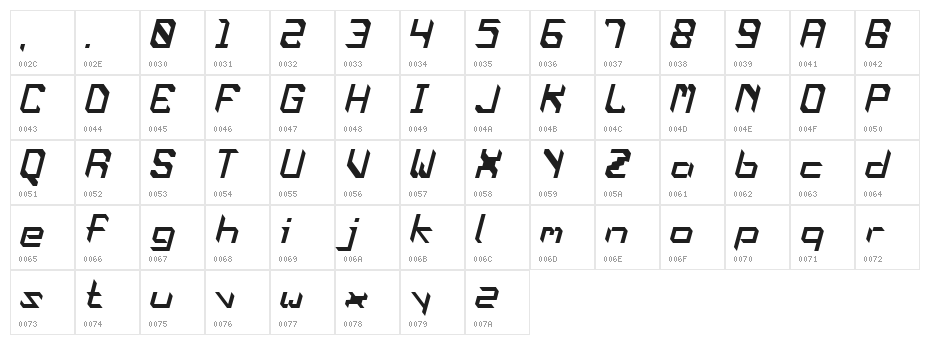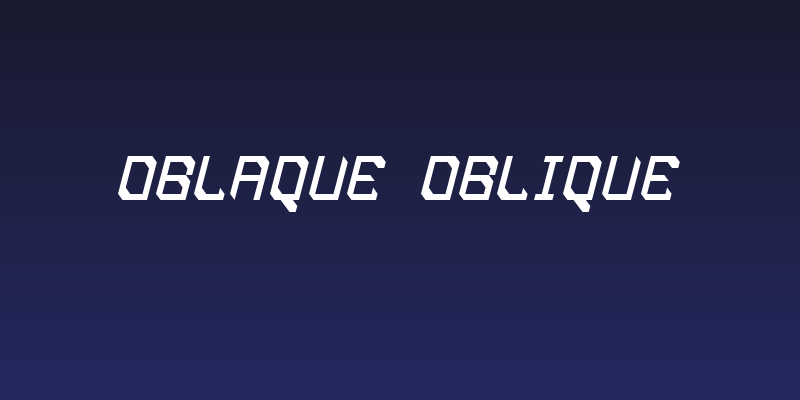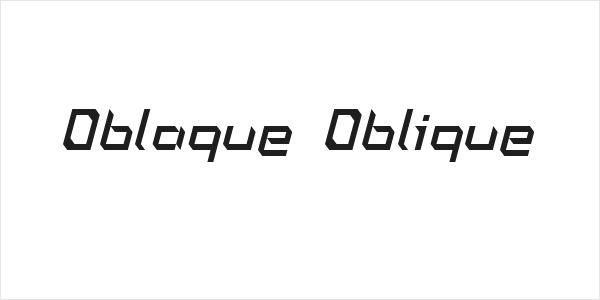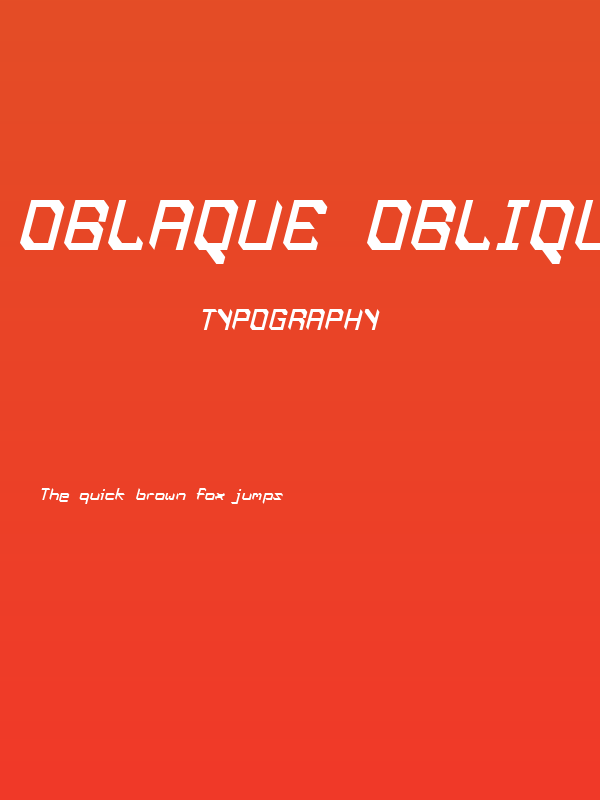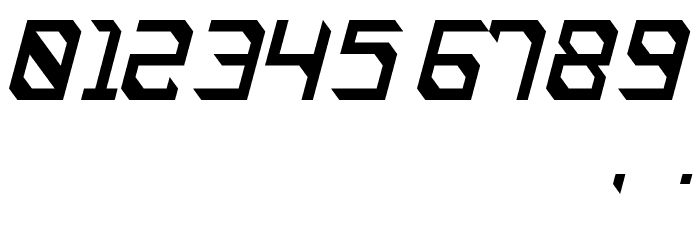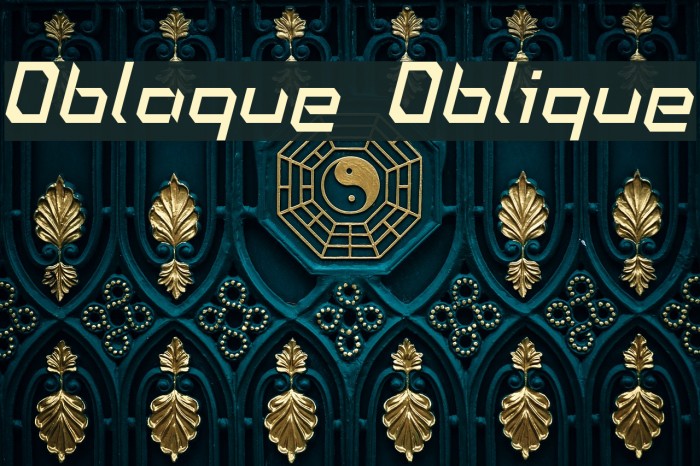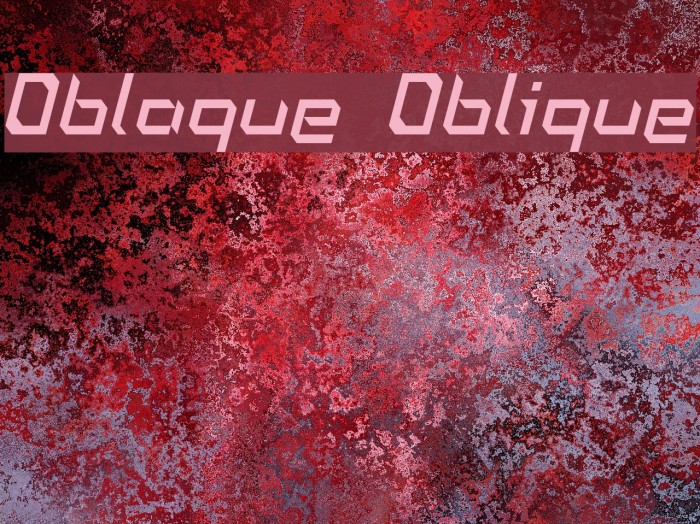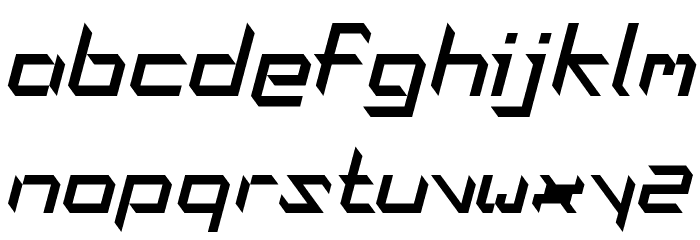
Oblaque Oblique Font
Oblaque Oblique Description
This font features a bold, angular design with a distinct slant, giving it a dynamic and futuristic appearance. The characters are constructed with sharp edges and geometric forms, creating a sense of motion and energy. The uppercase and lowercase letters maintain a consistent style, with the same angularity and slant applied throughout. Numbers and special characters follow the same design principles, ensuring uniformity across all glyphs. The font's unique style makes it stand out, making it suitable for projects that require a modern and edgy look.
| Overall Style | Futuristic, Dynamic |
| Proposed Projects | Ideal for tech branding, video game titles, sci-fi posters, and modern advertising. |